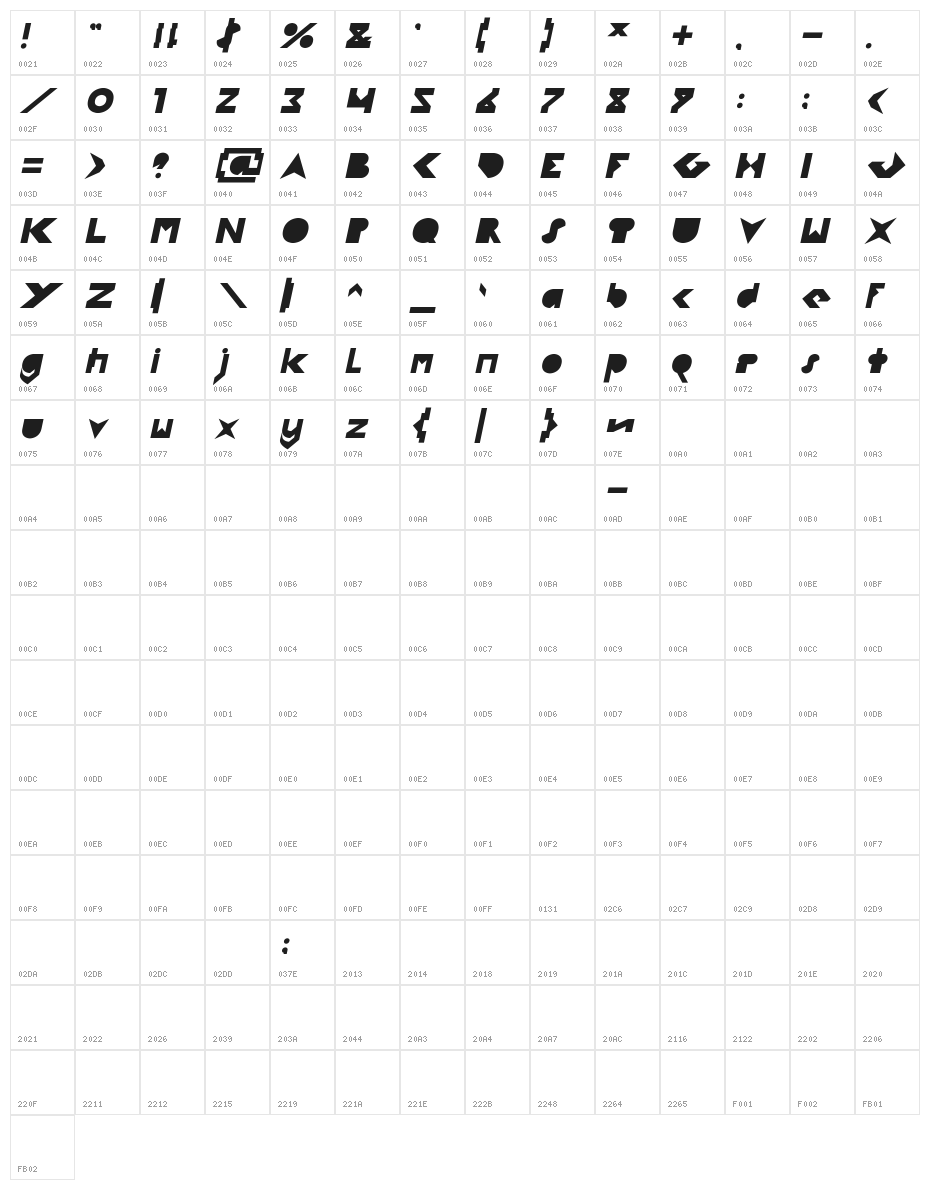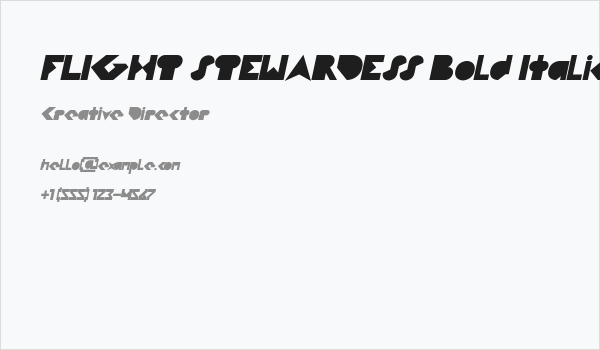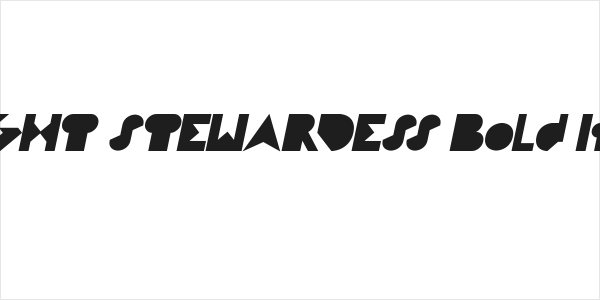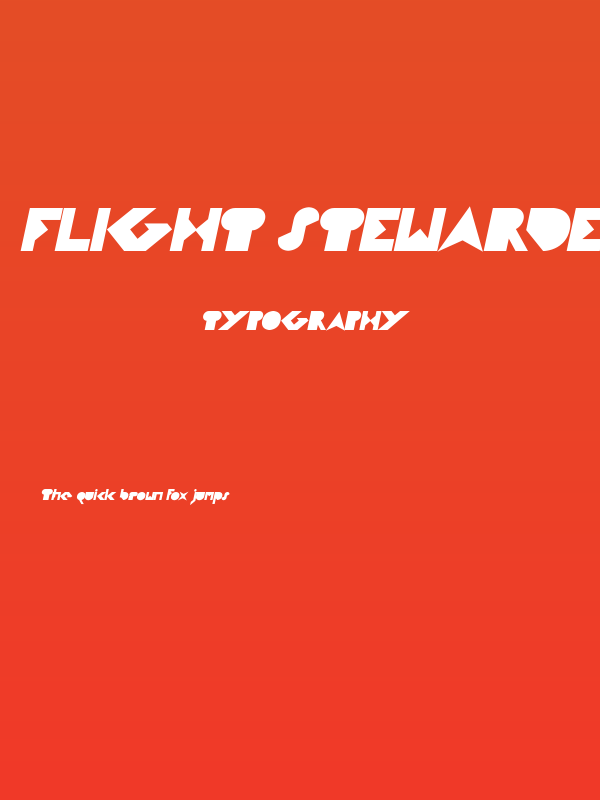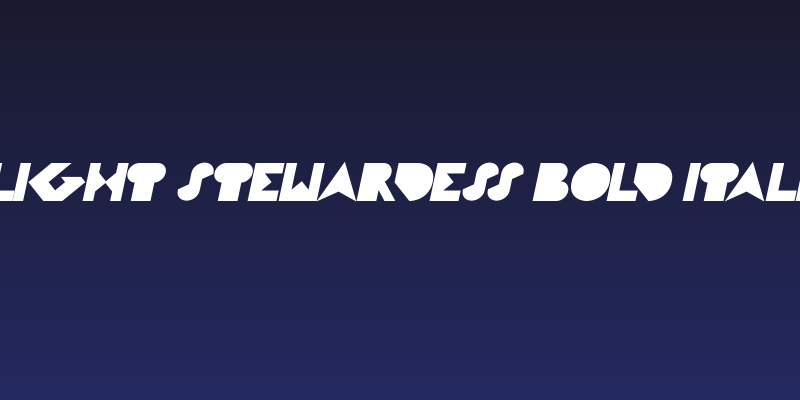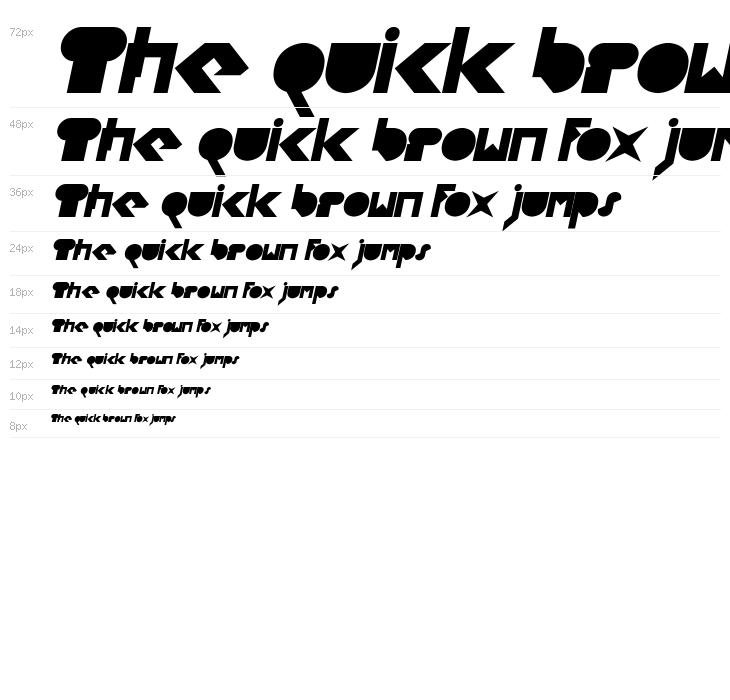
FLIGHT STEWARDESS Bold Italic Font
FLIGHT STEWARDESS Bold Italic Description
This font features a bold and italicized style with a distinct geometric and angular design. The characters are sharply cut, creating a dynamic and futuristic appearance. The uppercase and lowercase letters maintain a consistent angular theme, while the numbers and special characters follow suit with a similar boldness and slant. The font's unique style is characterized by its sharp edges and strong presence, making it stand out in any design. The italic slant adds a sense of motion and speed, enhancing its modern and edgy aesthetic.
Overall StyleFuturistic, Edgy
Proposed ProjectsIdeal for sci-fi themed projects, modern branding, dynamic posters, and edgy logo designs.